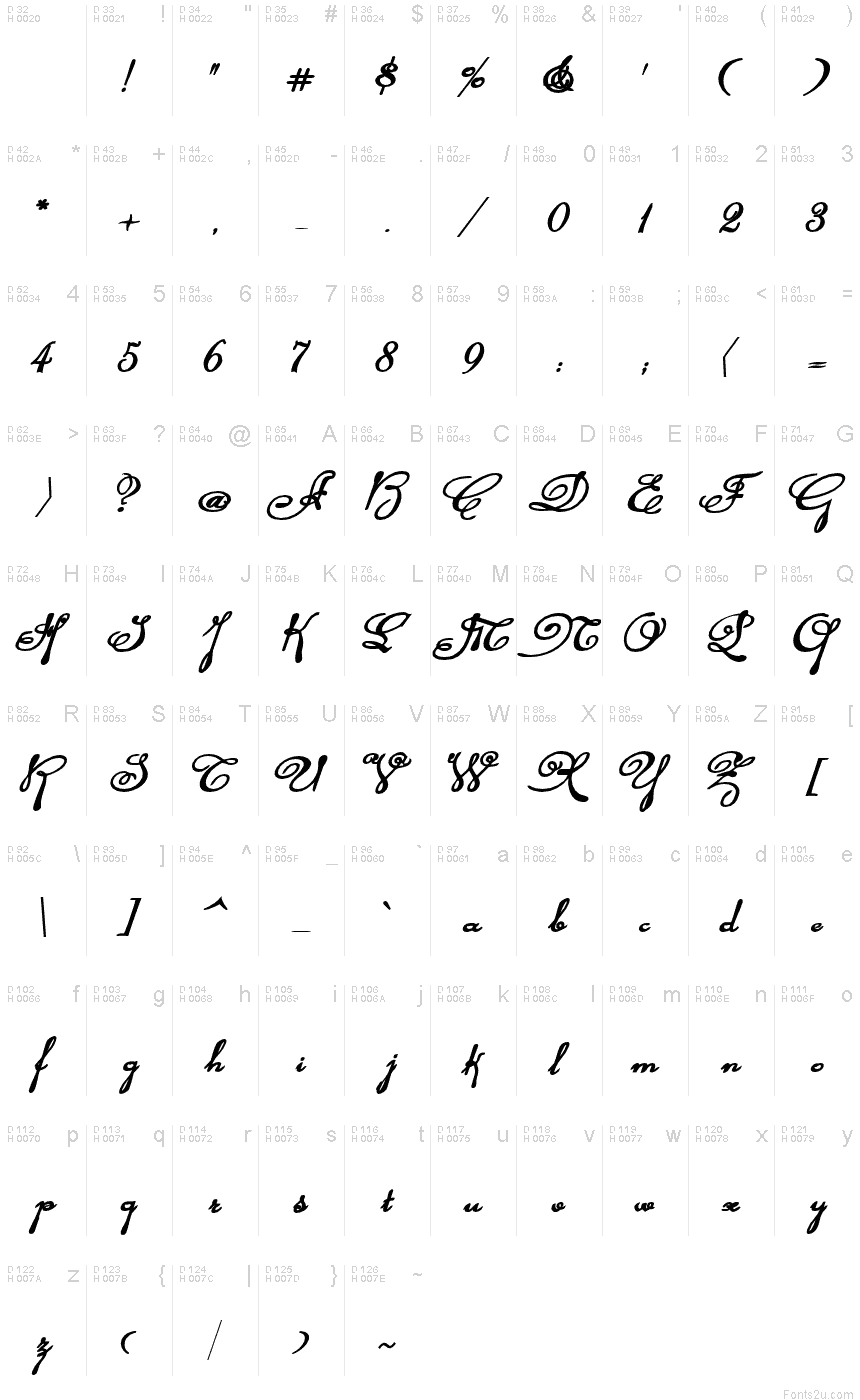
Rhalina Bold Expanded Italic by Daniel Zadorozny of Iconian Fonts is a free calligraphic script with broad, emphatic capitals and a pronounced forward sweep. Thick downstrokes narrow into wiry loops and long flourishes, giving the lettering an ornate signature quality with plenty of motion.
Fashion labels and beauty brands can use its dramatic sweep for logos, packaging, and campaign graphics. It also suits formal invitations. The oversized loops and theatrical capitals connect these applications to luxury styling, ceremony, and glamorous entertainment imagery.
Rhalina Bold Expanded Italic